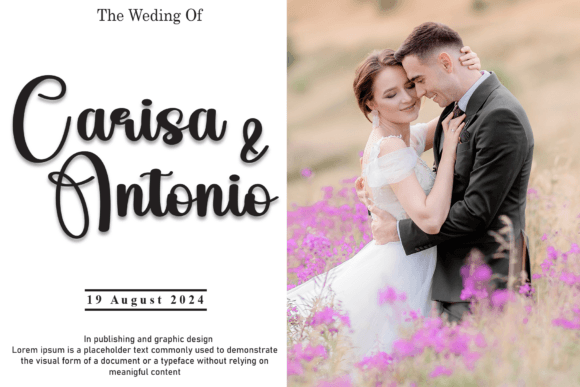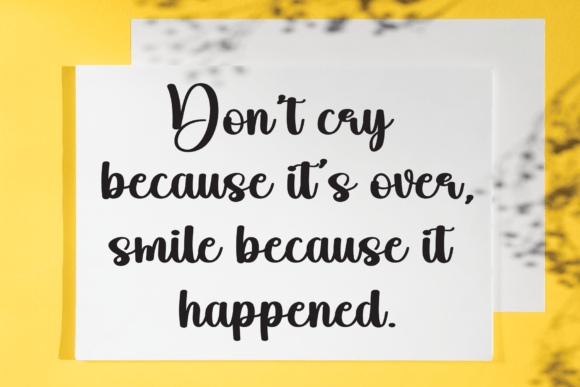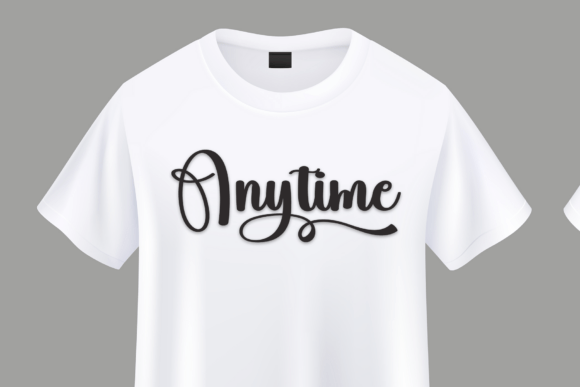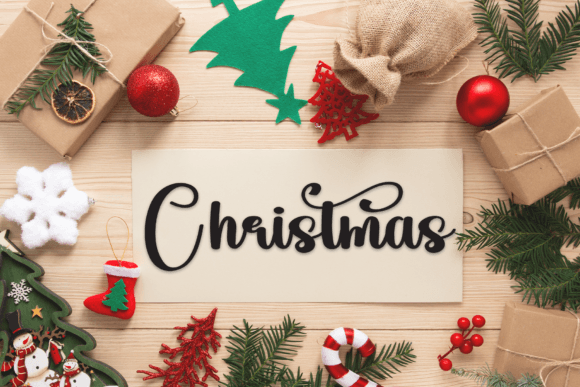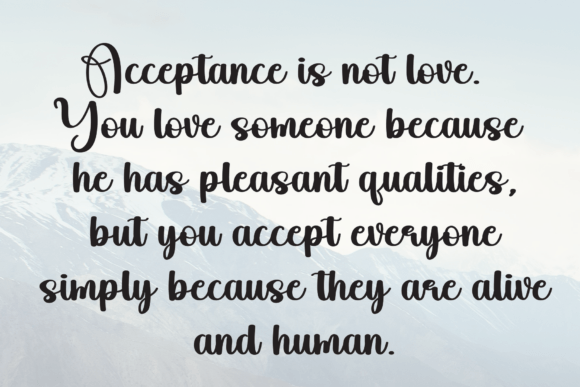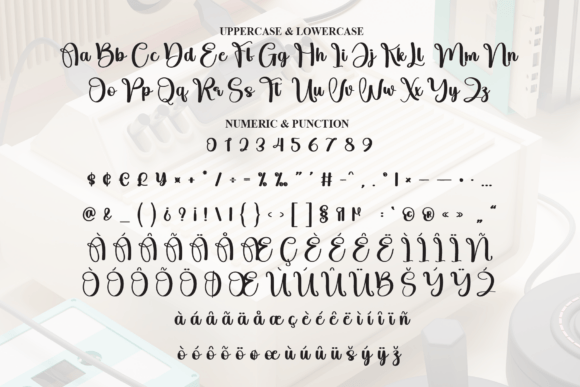
Introducing Eighties Font: The Ultimate Handwritten Display Font for Romantic Designs
Are you a designer or crafter looking for a font that embodies charm, playfulness, and sweetness? Look no further than Eighties Font, an enchanting handwritten display font that is perfect for crafting romantic wedding invitations, heartfelt cards, and any artful design that yearns for a sprinkle of fun.
The Charm of Eighties Font
Eighties Font is a delightful handwritten display font that is brimming with amiability and sweetness. Its playful and charming aura casts a spell of joy, turning every word into a delightful visual treat. Whether you’re designing a wedding invitation, a greeting card, or a social media post, Eighties Font is the perfect accent to add a touch of whimsy and romance.
Perfect for Romantic Designs
Eighties Font is specifically designed to evoke a sense of romance and playfulness, making it perfect for a variety of design projects. Here are just a few ideas for how you can use Eighties Font to add a touch of charm to your designs:
- Wedding Invitations: Use Eighties Font to create beautiful, one-of-a-kind wedding invitations that set the tone for a romantic and memorable celebration.
- Heartfelt Cards: Add a personal touch to your greeting cards with Eighties Font, perfect for birthdays, anniversaries, and other special occasions.
- Social Media Posts: Use Eighties Font to add a playful and romantic touch to your social media posts, perfect for sharing special moments with friends and family.
- Artful Designs: Eighties Font is perfect for adding a touch of whimsy and fun to any artful design, from posters and flyers to brochures and more.
What Makes Eighties Font Special?
So what makes Eighties Font so special? Here are just a few features that set it apart from other fonts:
- Handwritten with Love: Eighties Font is a handwritten display font, carefully crafted to evoke a sense of warmth and personality.
- Playful and Whimsical: Eighties Font has a playful and whimsical aura, perfect for adding a touch of fun and romance to your designs.
- Highly Readable: Despite its playful nature, Eighties Font is highly readable, making it perfect for use in a variety of design projects.
- Versatile: Eighties Font is a versatile font that can be used in a variety of design projects, from digital designs to print materials.
Tips for Using Eighties Font
Here are a few tips for getting the most out of Eighties Font:
- Use it as an Accent: Eighties Font is perfect for use as an accent font, adding a touch of whimsy and romance to your designs.
- Experiment with Colors: Eighties Font looks great in a variety of colors, so don’t be afraid to experiment and find the perfect hue for your design.
- Pair it with Other Fonts: Eighties Font pairs well with a variety of other fonts, so feel free to get creative and find the perfect combination for your design.